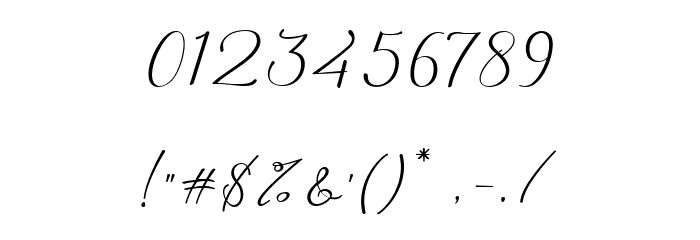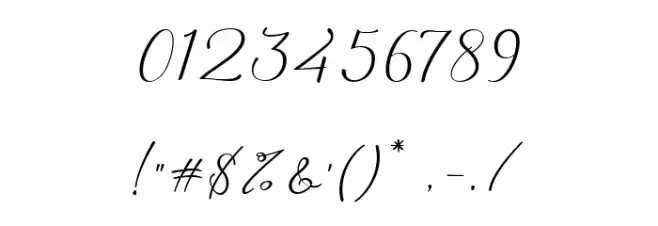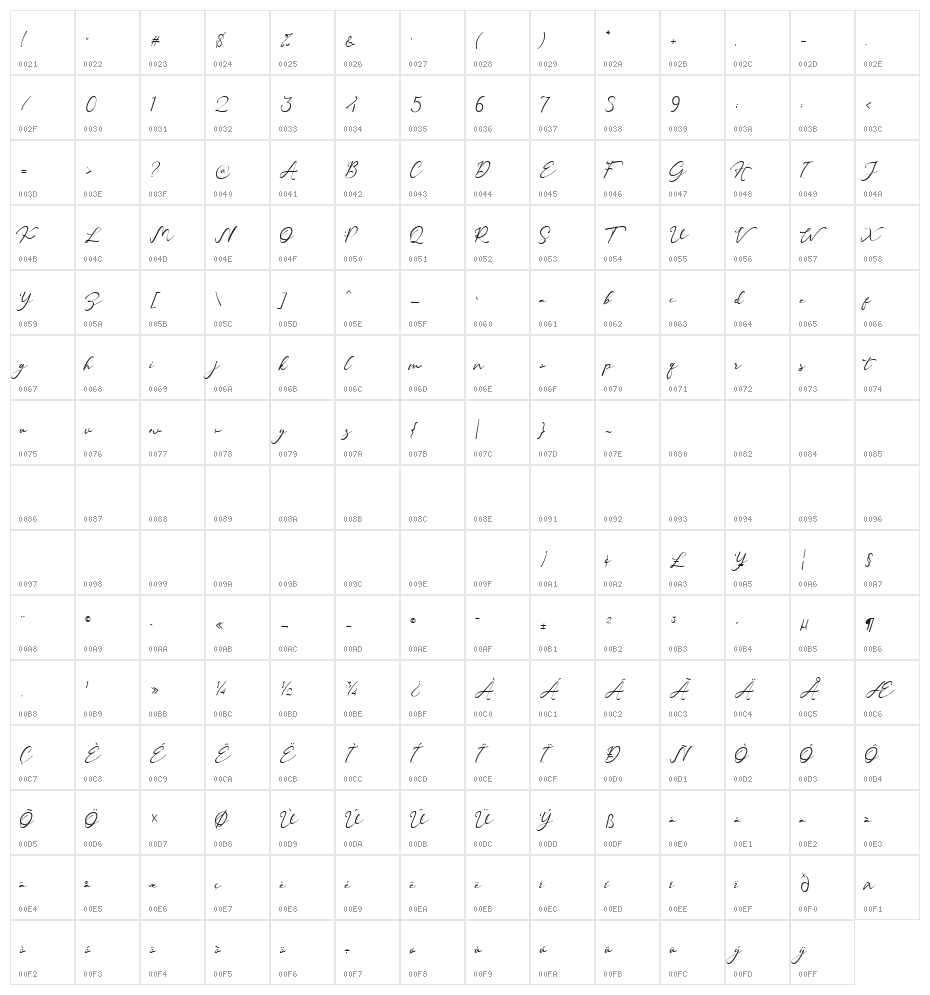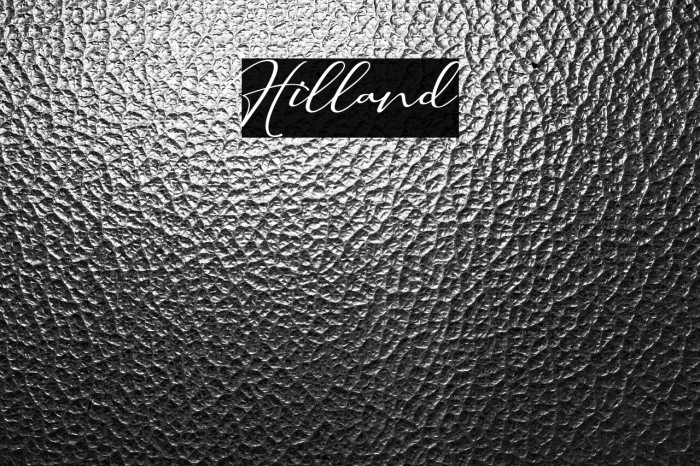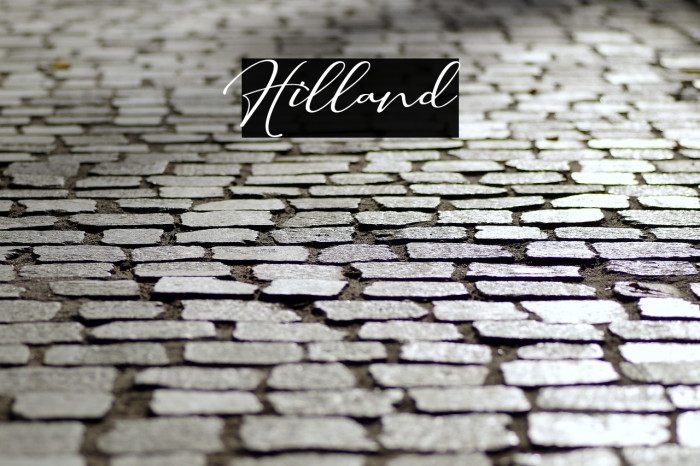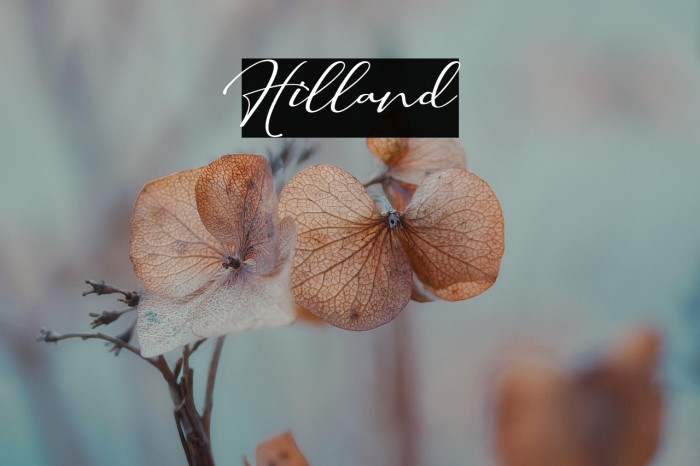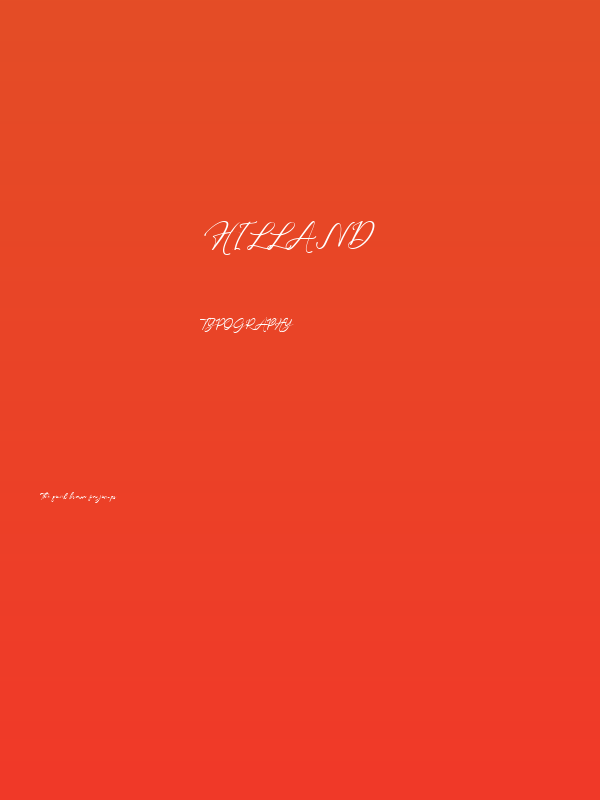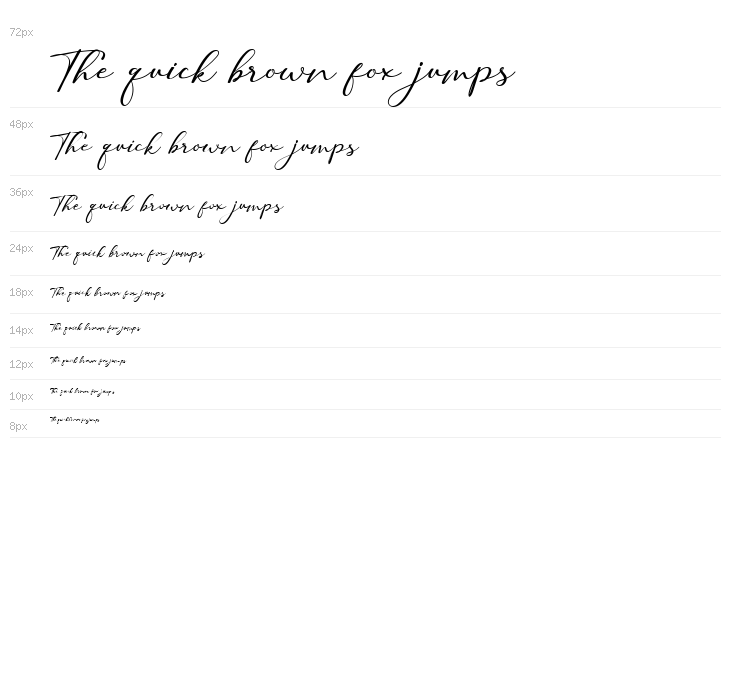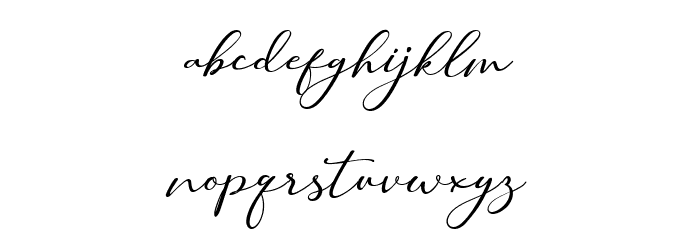
Hilland Font
Hilland Description
This font exudes elegance and sophistication with its flowing, cursive style. The letters are intricately designed with smooth curves and delicate flourishes, giving it a handwritten appearance. The uppercase letters are particularly ornate, featuring extended strokes and loops that add a touch of grandeur. The lowercase letters maintain a consistent style, ensuring readability while retaining the decorative elements. Numbers and special characters are crafted with the same attention to detail, making them seamlessly integrate with the text. This font is perfect for projects that require a personal, artistic touch.